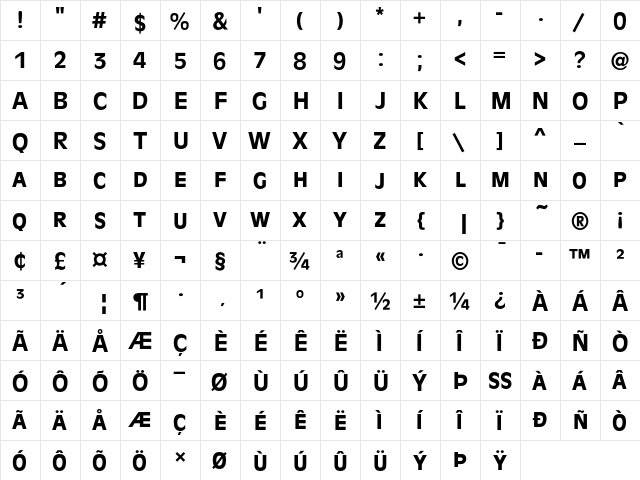
Antique Olive DC D Medium
Design Context for Antique Olive DC D Typeface
Antique Olive DC D wears its vintage influences proudly, with letterforms that recall mid-century signage, classic packaging, and nostalgia-driven design.
Perfect for vintage-inspired branding, retro packaging, nostalgia campaigns, and period-accurate editorial design.
Font Pairing: Combine Antique Olive DC D with a simple slab or neutral sans — period-accurate companions reinforce the vintage feel without competing for attention.
Pro Tip: Use Antique Olive DC D for headlines and pull quotes rather than body copy — its personality is best appreciated in short, focused bursts.